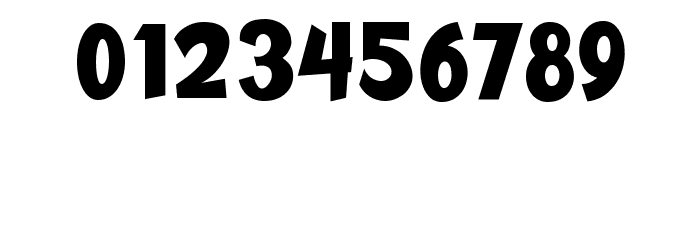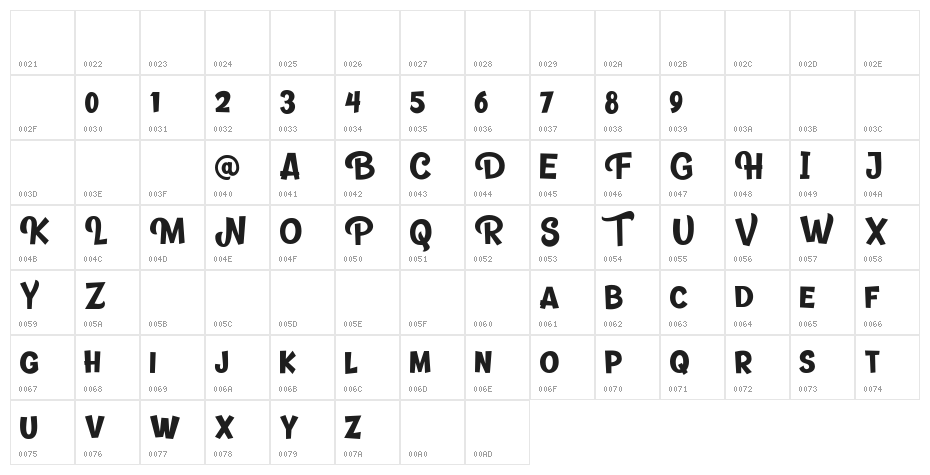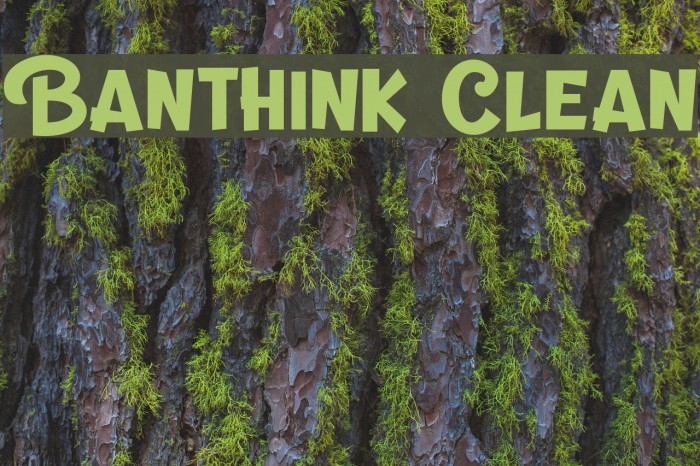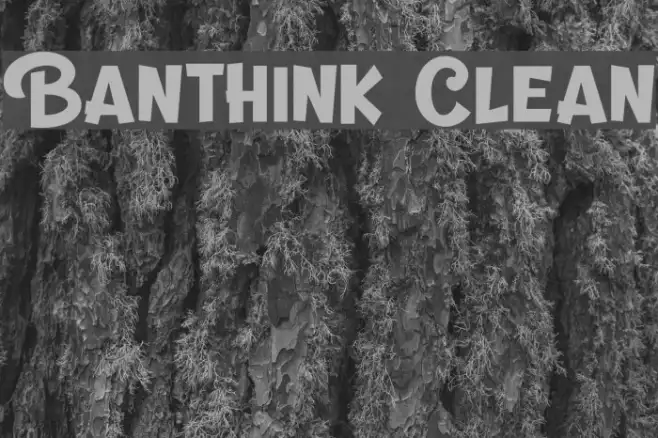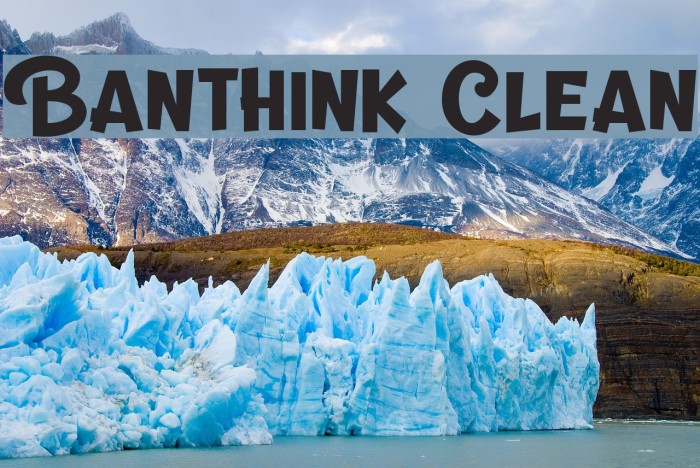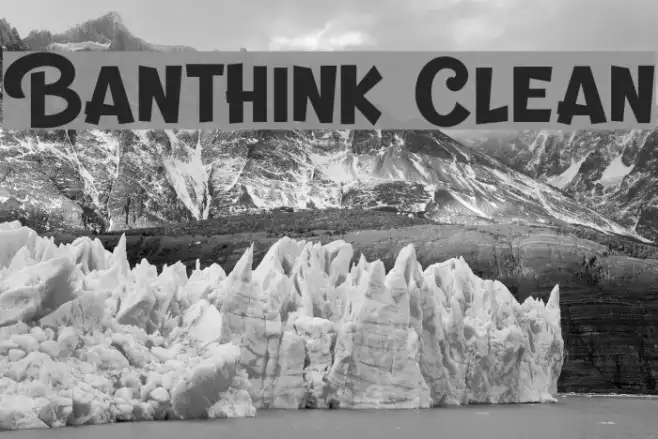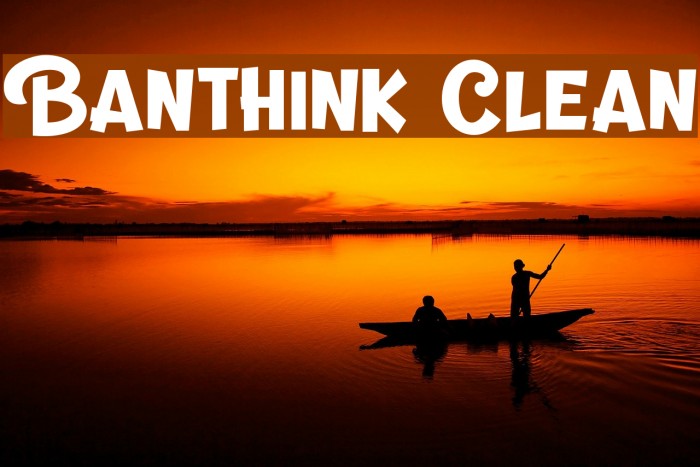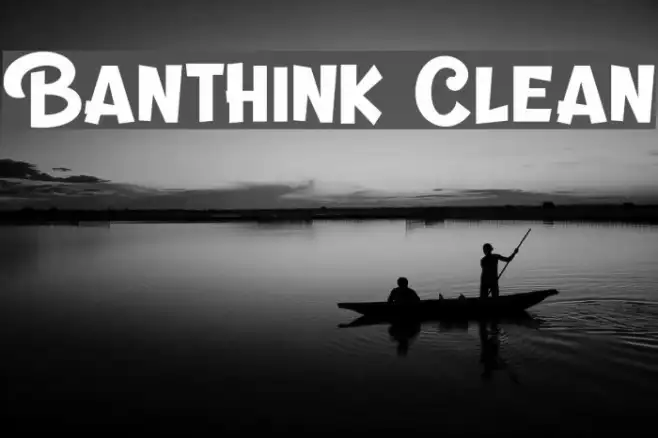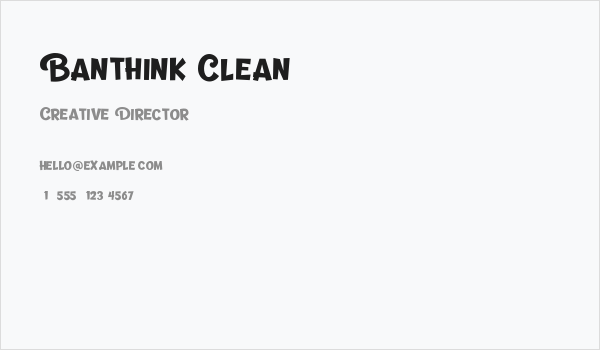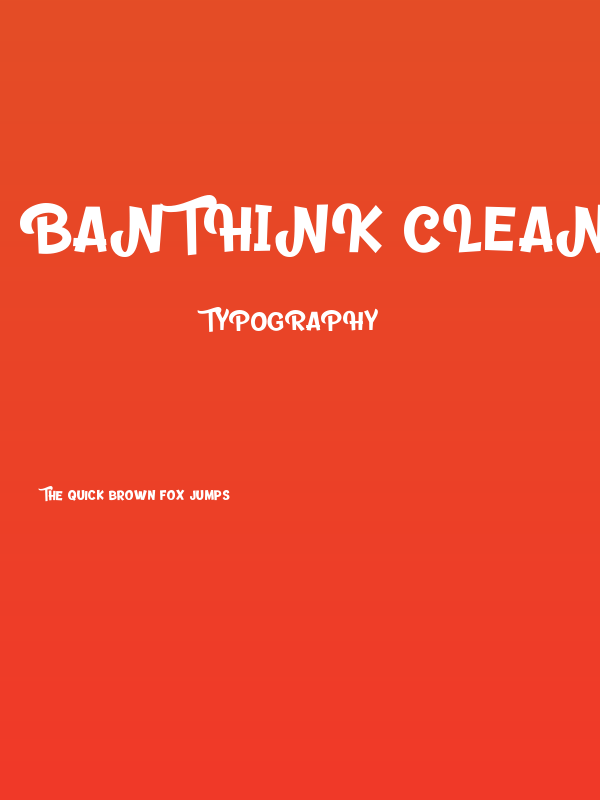
Banthink Clean Font
Banthink Clean Description
This font features a bold and playful style with a unique blend of curves and straight lines. The uppercase letters have a whimsical flair, particularly noticeable in characters like 'Q' and 'R', which have exaggerated tails. The lowercase letters maintain a consistent style, with rounded edges that give them a friendly appearance. The numbers are bold and clear, ensuring readability. This font is ideal for projects that require a fun and engaging look, such as children's books, posters, or branding for playful products. Its distinct style makes it stand out, while the boldness ensures it captures attention.
| Proposed Projects | Children's books, playful branding, posters, and creative projects. |